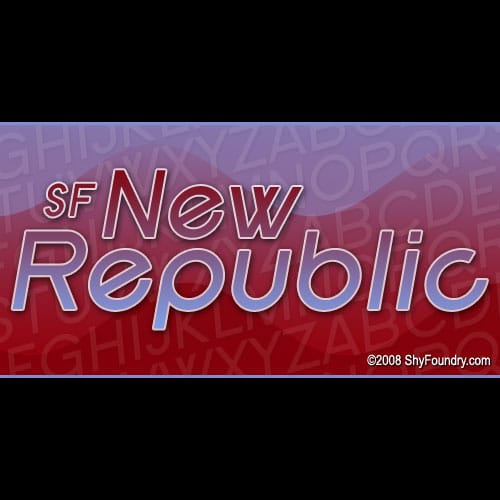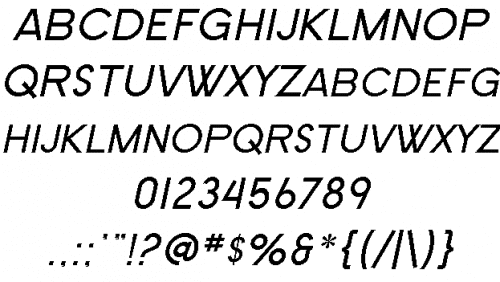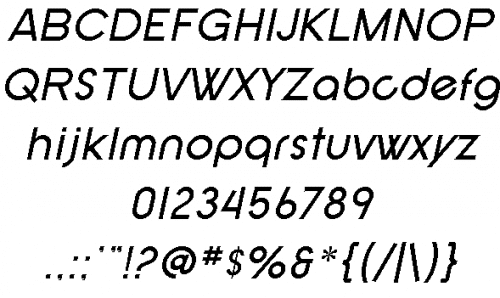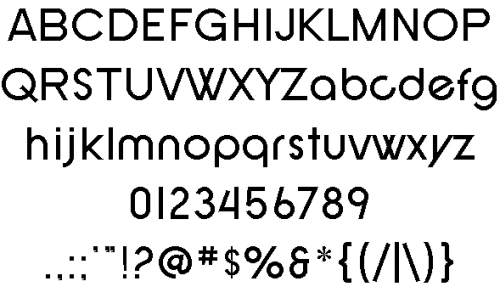
Sf New Republic Font is A new and modern variation of SF Old Republic. SF New Republic contains lowercase and uppercase letters, numbers, punctuation, and accented characters. The complete font packages includes the following eight fonts:
- SF New Republic – Regular
- SF New Republic – Bold
- SF New Republic – Bold Italic
- SF New Republic – Italic
- SF New Republic SC – Regular
- SF New Republic SC – Bold
- SF New Republic SC – Bold Italic
- SF New Republic SC – Italic